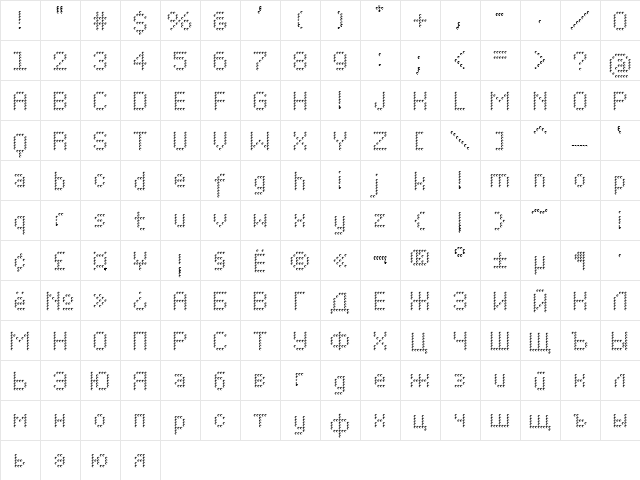
PerfoCone Normal
Design Context for PerfoCone Typeface
PerfoCone takes a measured approach to typography — its balanced proportions and neutral character make it a reliable workhorse for both digital and print work.